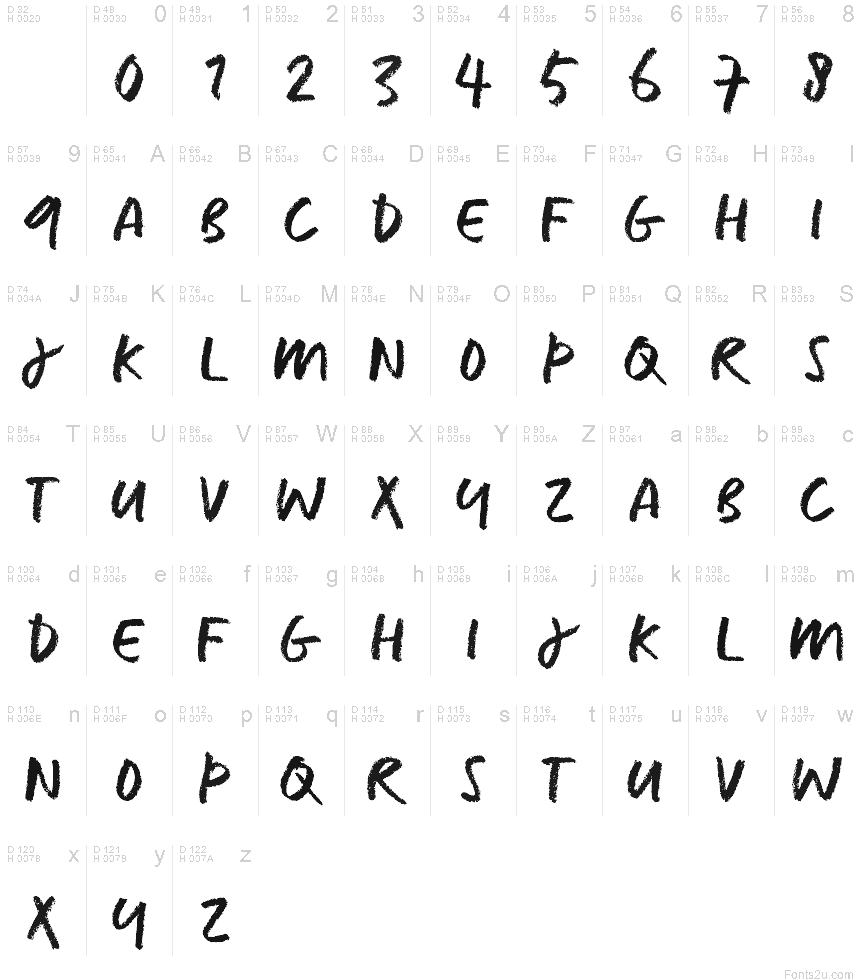
CAPUT is a typeface consisting of only capitals with the appearance of a handwritten font, due to the many ligatures. This is a demo version of the font.
NOTE: the demo font files do contain ligatures, although the glyphset below doesn't show them.